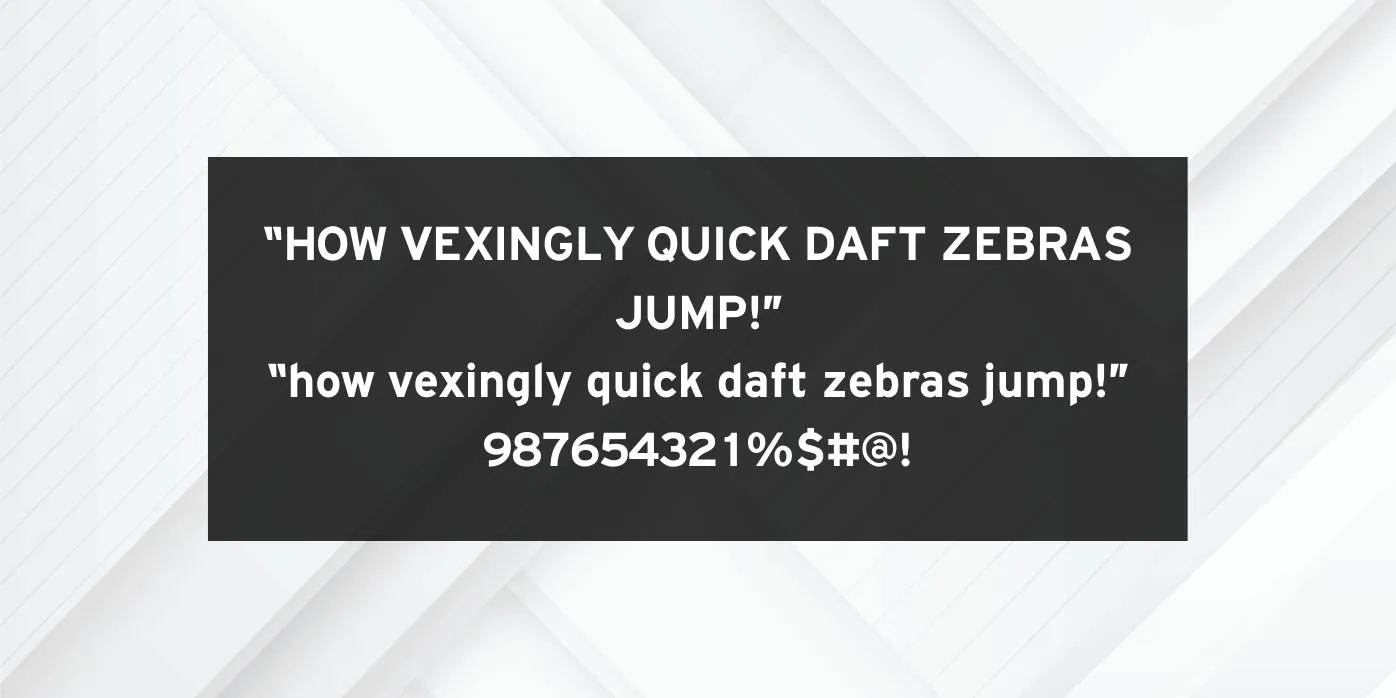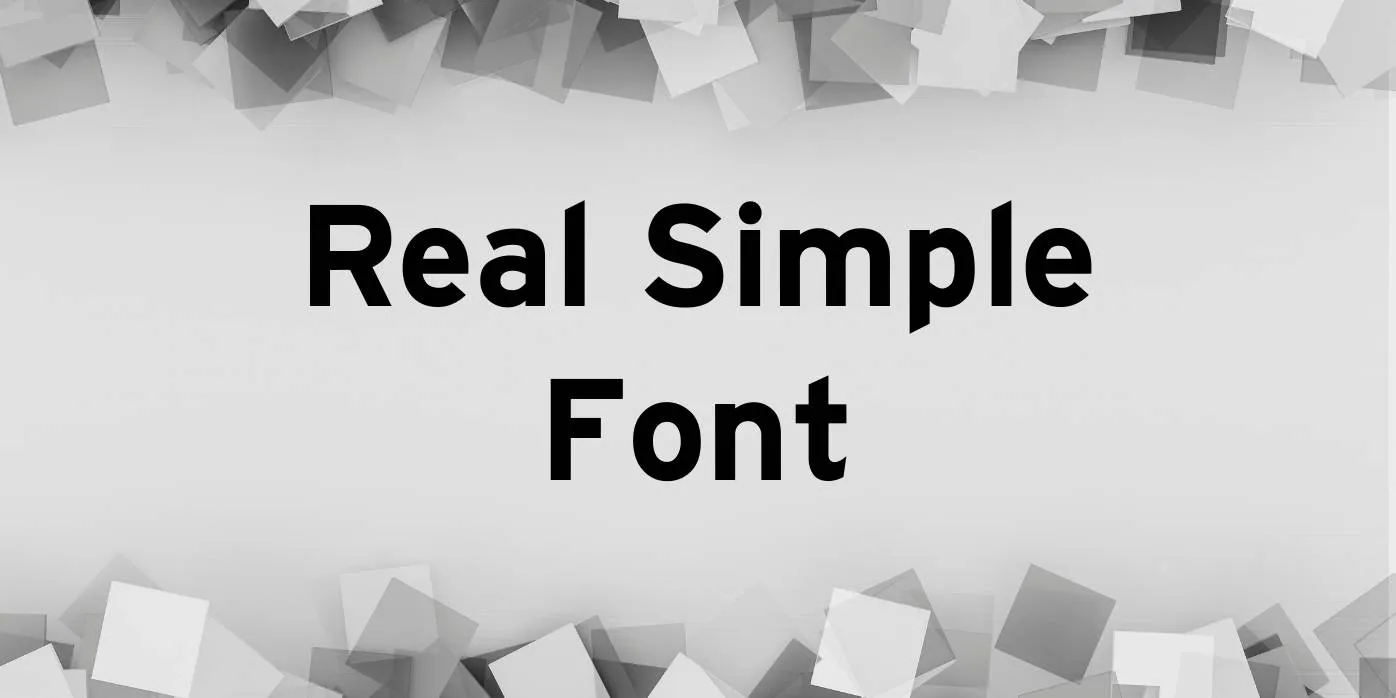
Real Simple Font
Here we present the Real Simple Font which was designed and shared by Tobias Frere-Jones. It is a part of the sans serif Typeface family. This Real Simple Typeface features unique characters and a stylish design. This stylish Typeface is perfect for a variety of designs.
This typeface was created with a touch of natural sans serif family. It contains a full set of classic uppercase and lowercase letters, symbols, numbers, and punctuation marks. This awesome Typeface also supports OpenType features such as stylistic alternates, ligatures, and swashes. For more classic features, you will have to use its alternative microgramma font which has the same features.